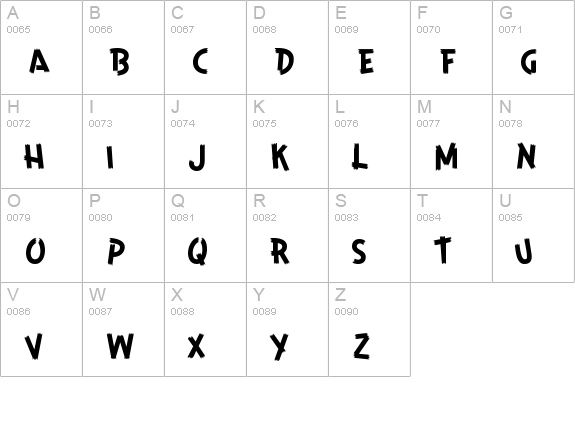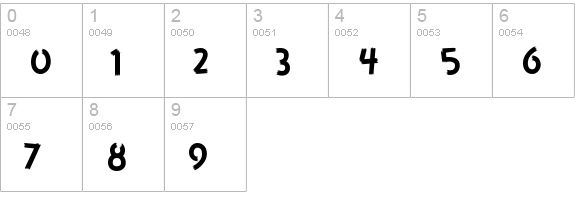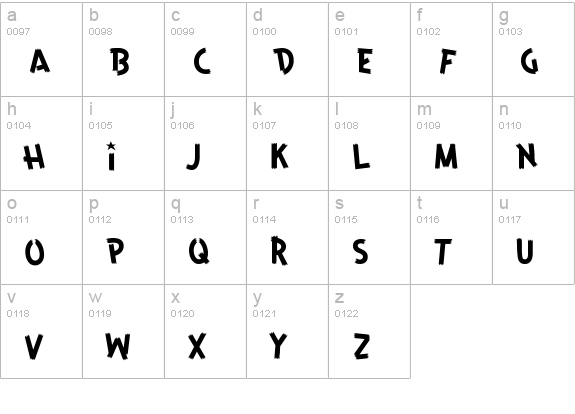
HolidayRanch Font Details
HolidayRanch font is a charming and versatile typeface that captures the essence of a rustic holiday retreat. With its clean lines and playful curves, this font exudes a sense of warmth and nostalgia, making it perfect for a wide range of design projects. Whether you are creating invitations for a cozy cabin getaway or designing signage for a Western-themed event, HolidayRanch font is sure to add a touch of character and whimsy. Best of all, HolidayRanch font is available for free download at FontsMarket.com. This means that you can easily access this delightful font and incorporate it into your designs without any hassle. Don't miss out on the opportunity to bring a touch of holiday charm to your projects with HolidayRanch font – download it today and let your creativity run wild!